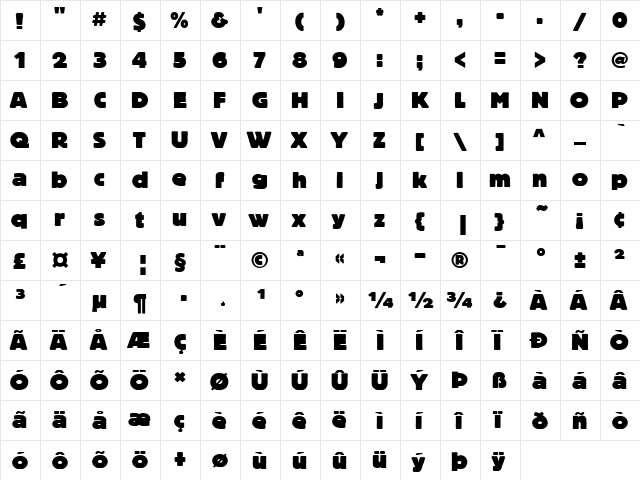
Block T Regular
Design Context for Block T Typeface
Block T is a composed and adaptable typeface that performs quietly and consistently across a wide range of design contexts.